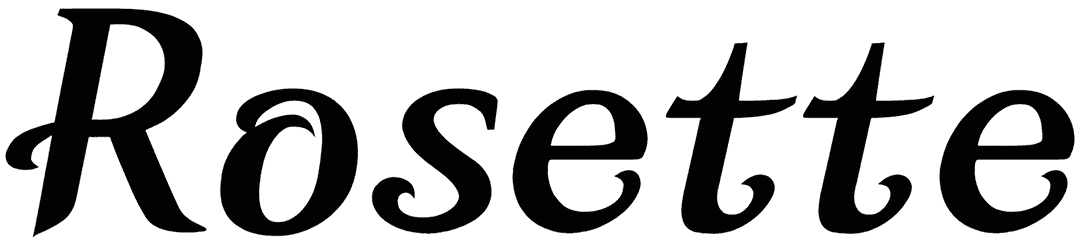
HU Rosette Font
Designed byHeumm Design
What area of writing design; official documents, invitations, fashion, magazines, or any other circumstance in your typography method calls for your struggle with a reliable serif font?
Start giving off all the trustworthy and honorable sense you are praising for. Make an experience of HU Rosette, the fresh luxury font originated from Resource Boy library, to reinforce and expand the classical, loyal gratitude in that area.